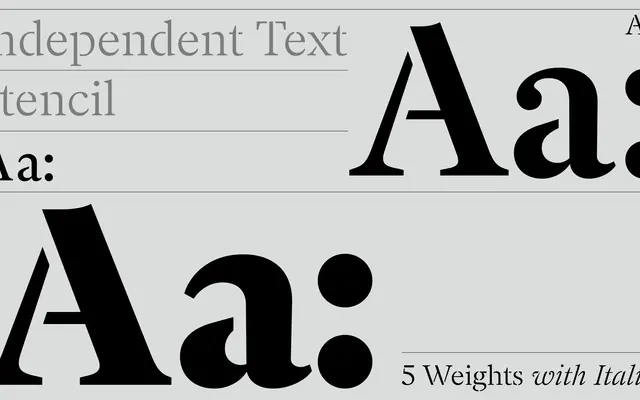
Independent Text Stencil
A2-Type · 2013
A stencil serif subfamily within A2-Type's award-winning Independent family, originally commissioned for The Independent newspaper in 2013.
Part of a large interconnected type system designed for The Independent's print and digital editions, the Text Stencil subfamily applies stencil cuts across five weights from Light to Black, each with a matching italic. The wider family received a D&AD Yellow Pencil in 2014 and the Typeface Design prize at the Tokyo TDC in 2015. The stencil variants were added later to extend the family's range of applications beyond core editorial use.
A stencil variant of a text serif, with interrupted strokes defining it as display-oriented despite its text-weight origins within a newspaper type system.